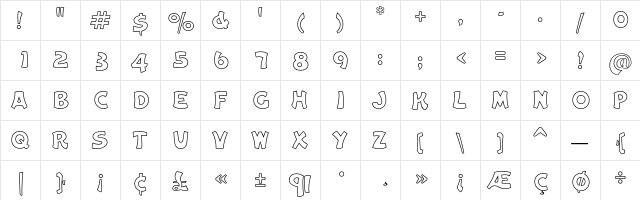
Cameo Outline
Design Context for Cameo Typeface
Cameo is built around its visual character rather than neutral utility — its distinctive forms are designed to make an impression at display sizes.
Font Pairing: Pair with a clean neutral sans-serif for body copy to let Cameo's character lead without overwhelming the composition.
Pro Tip: Use Cameo exclusively at display sizes — it was designed to be seen, not read at length. Let a neutral companion handle body copy.